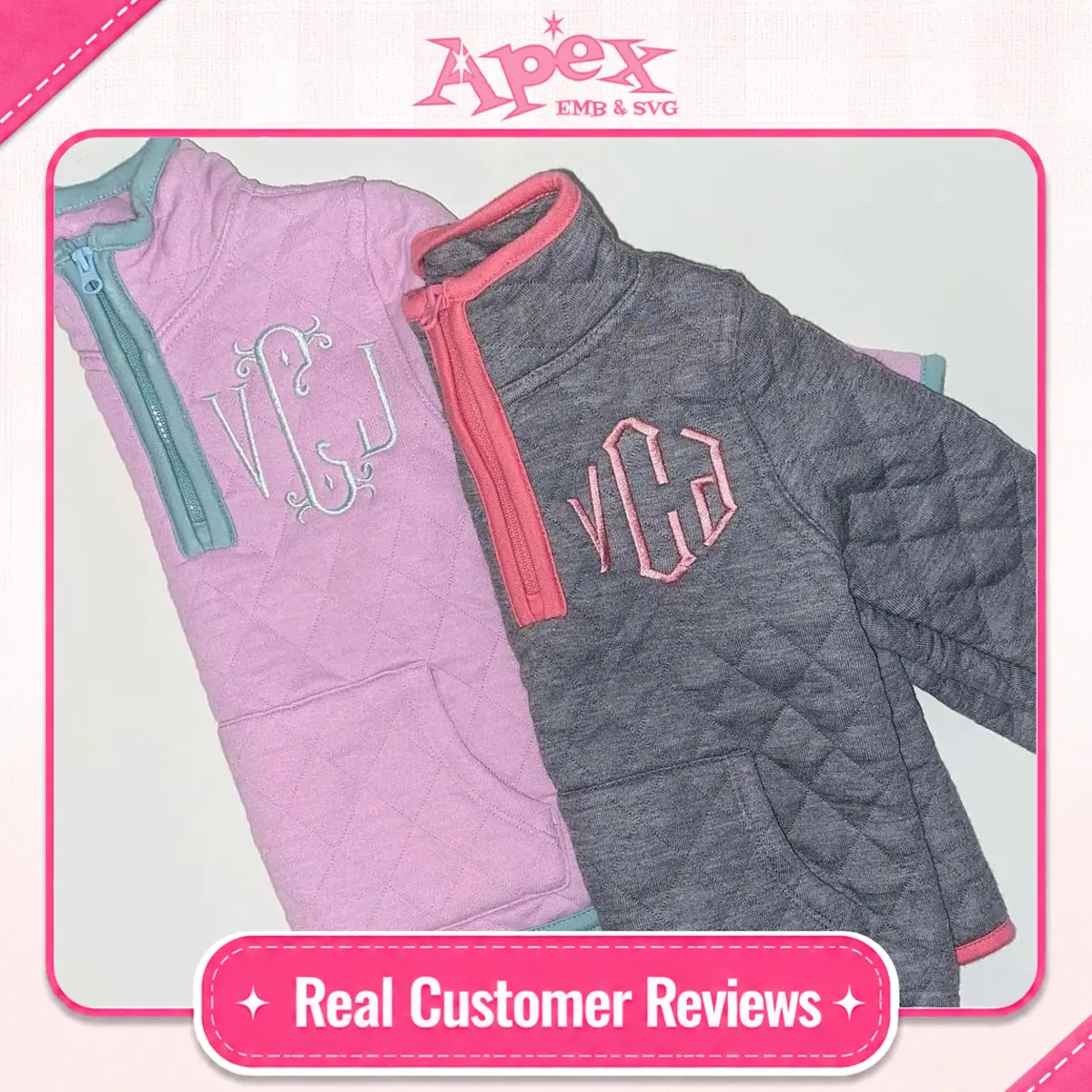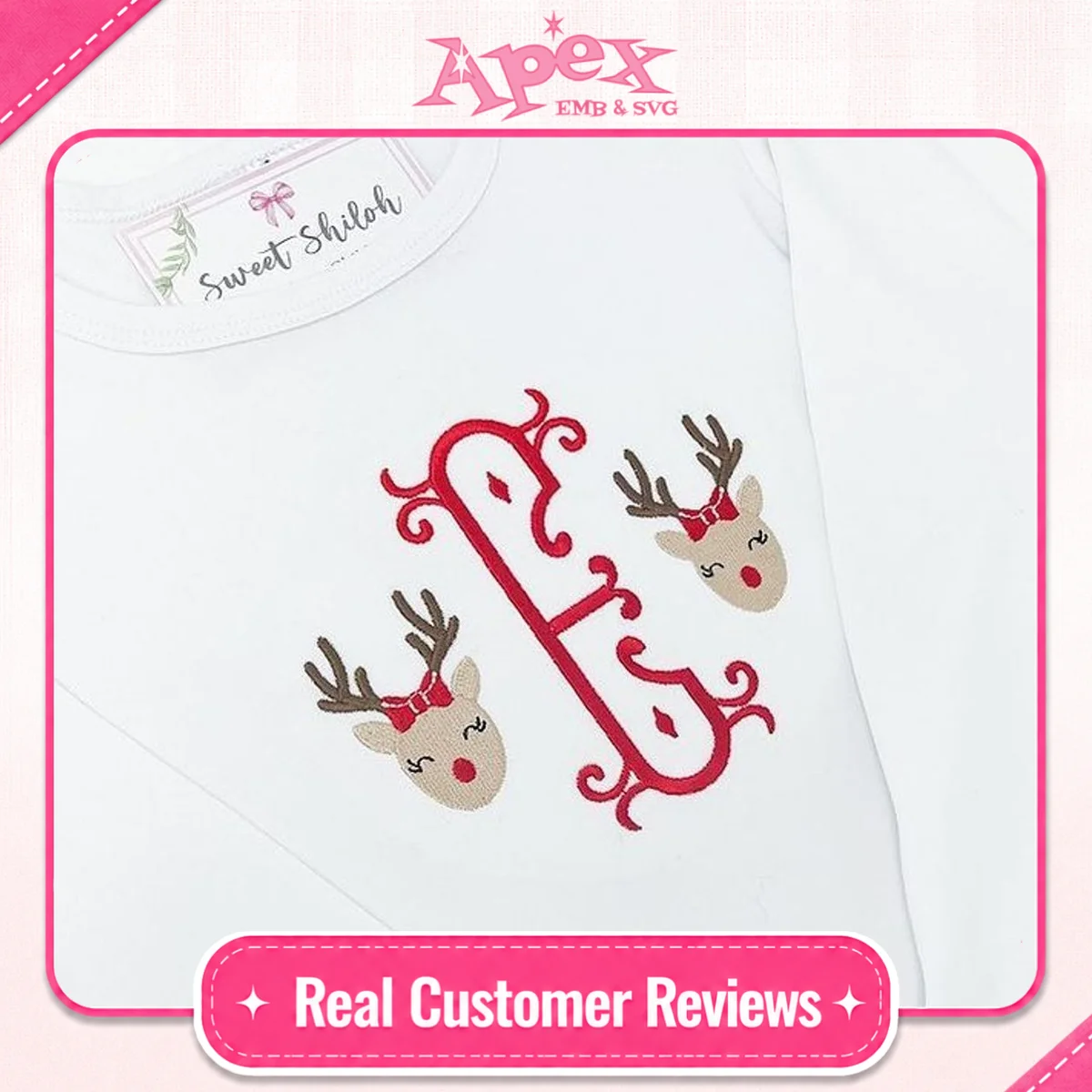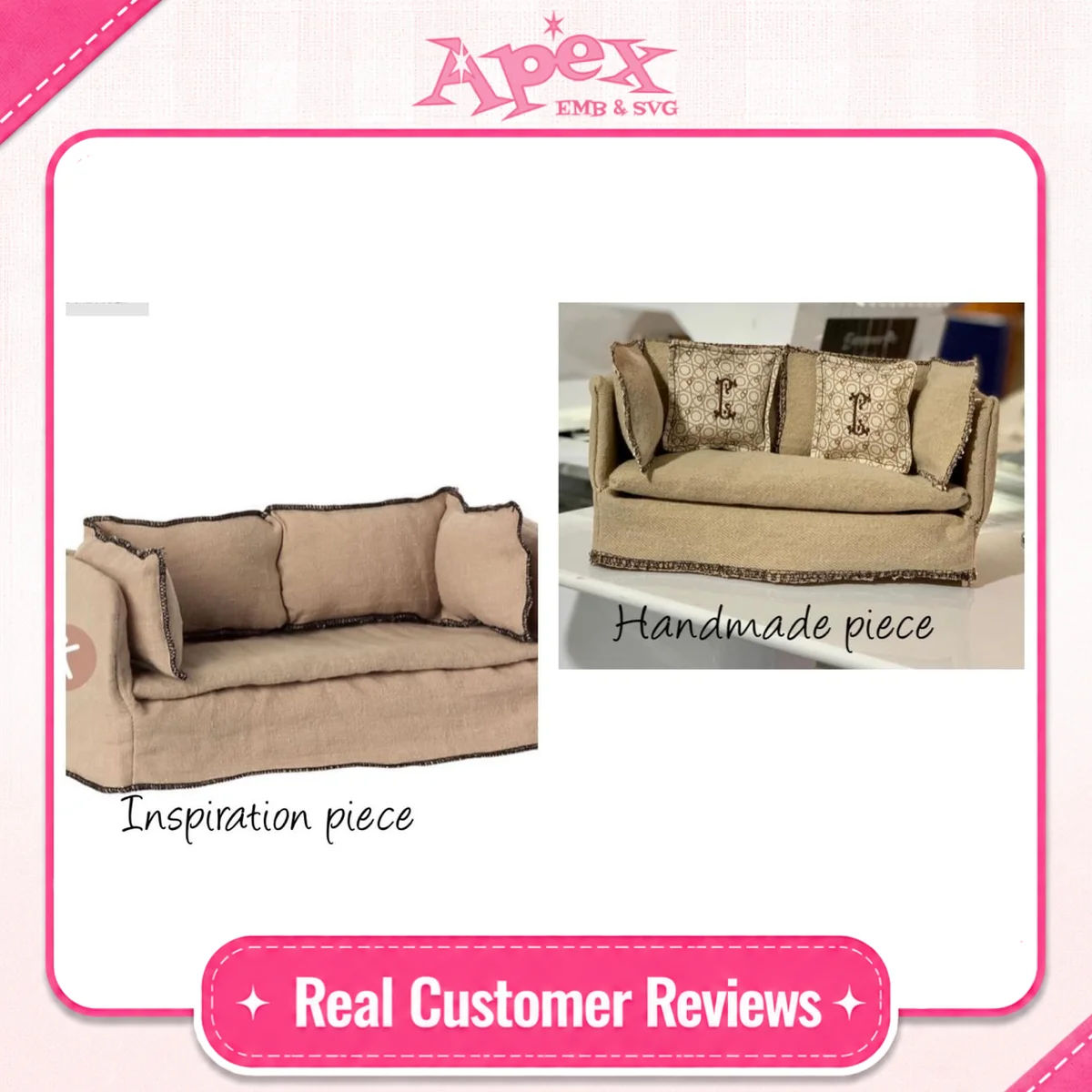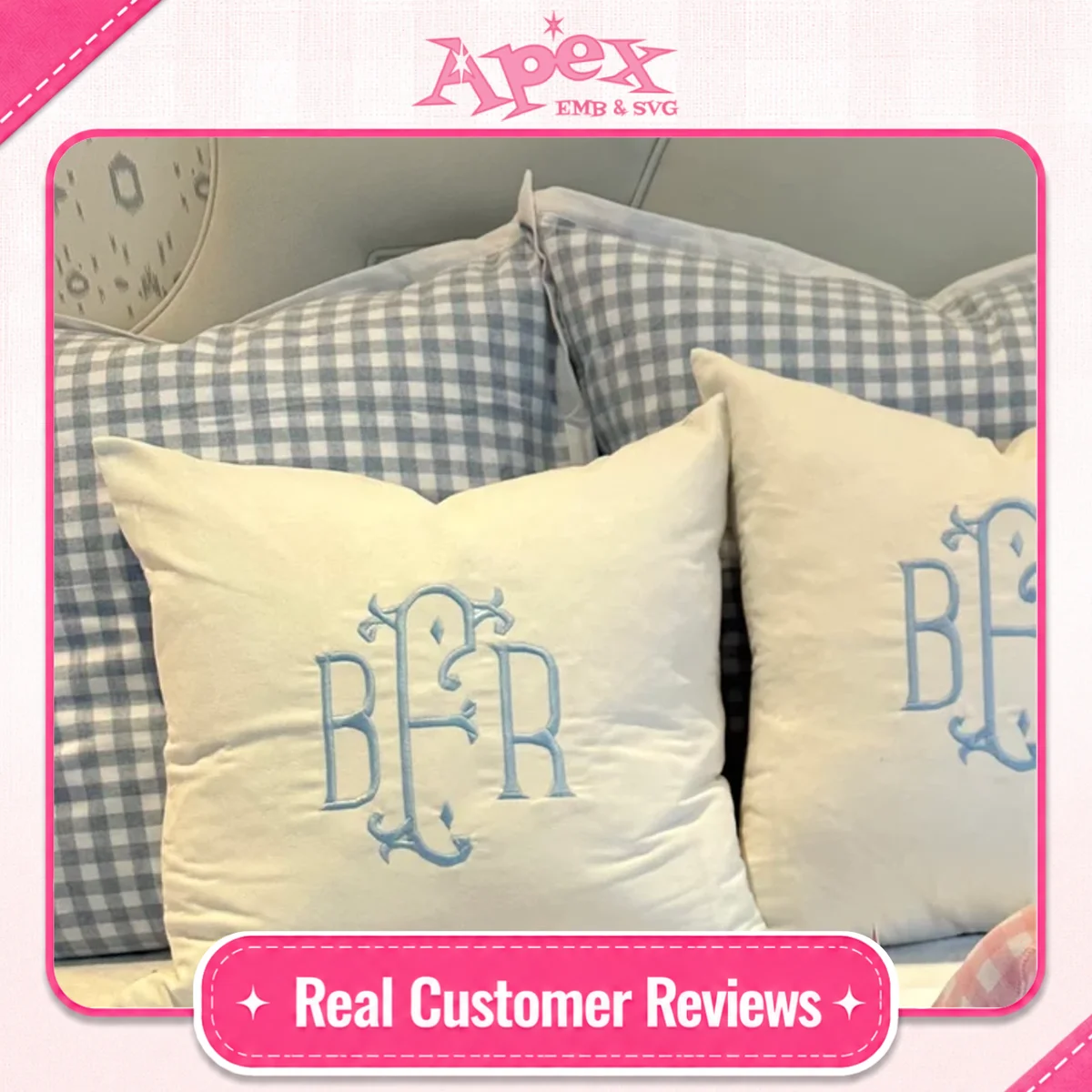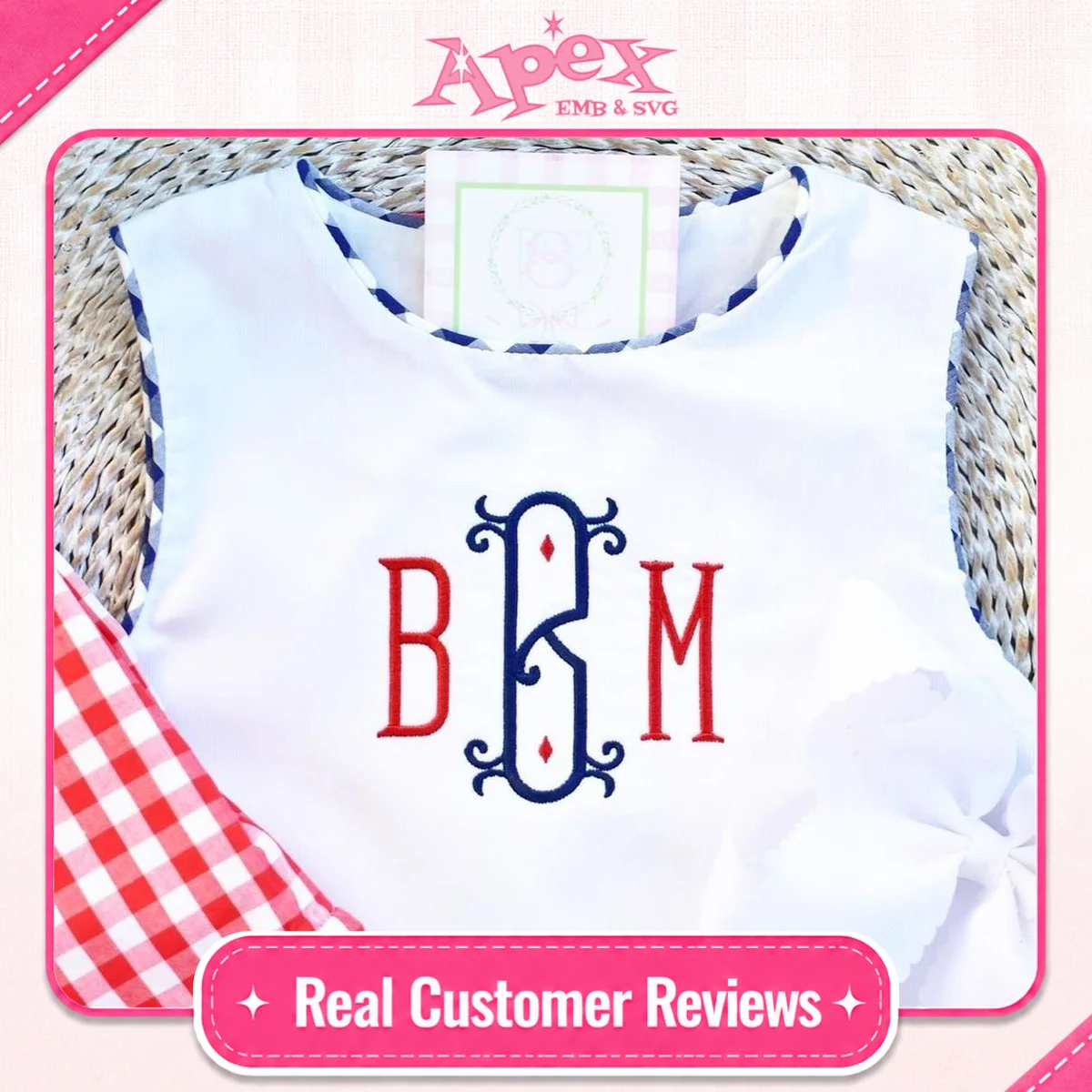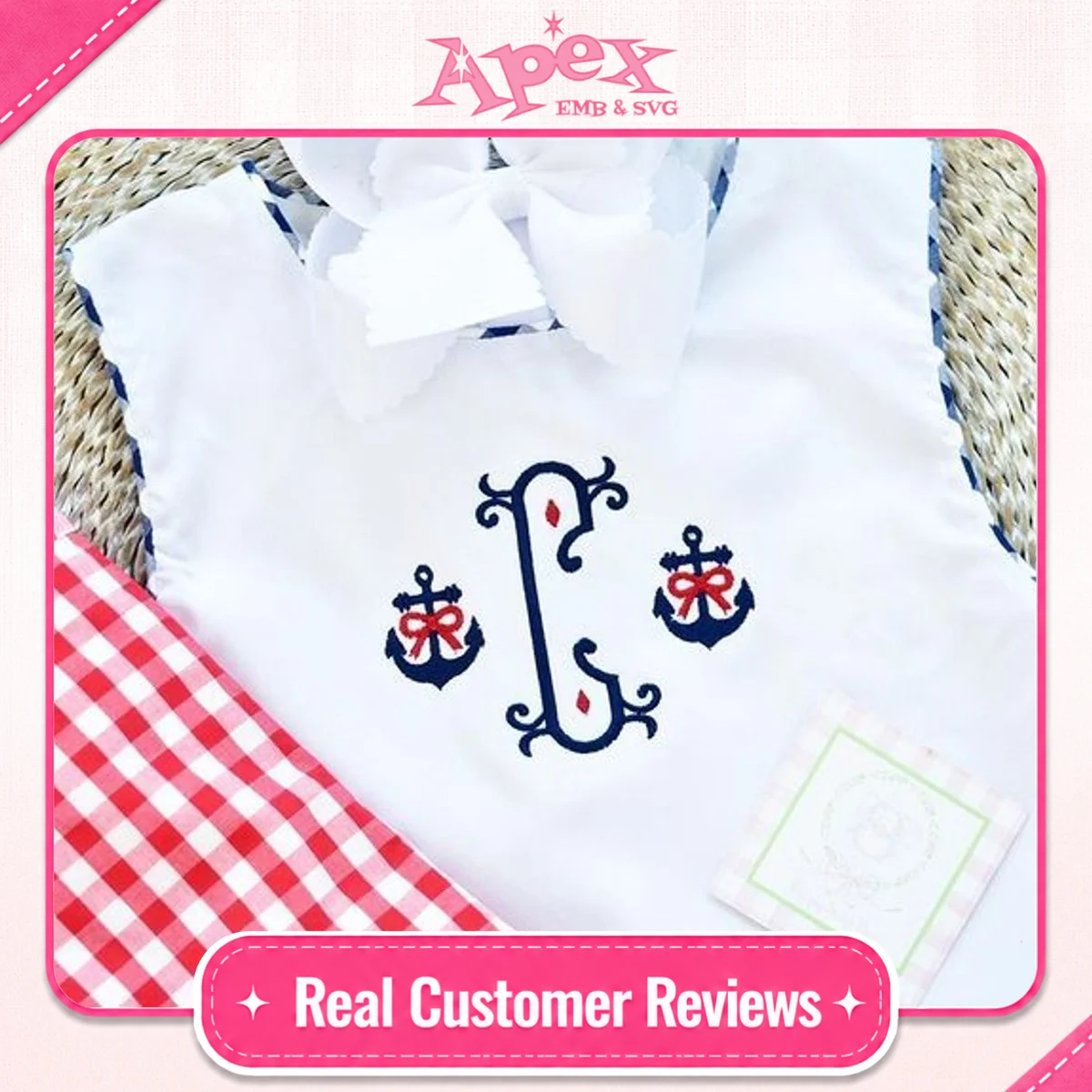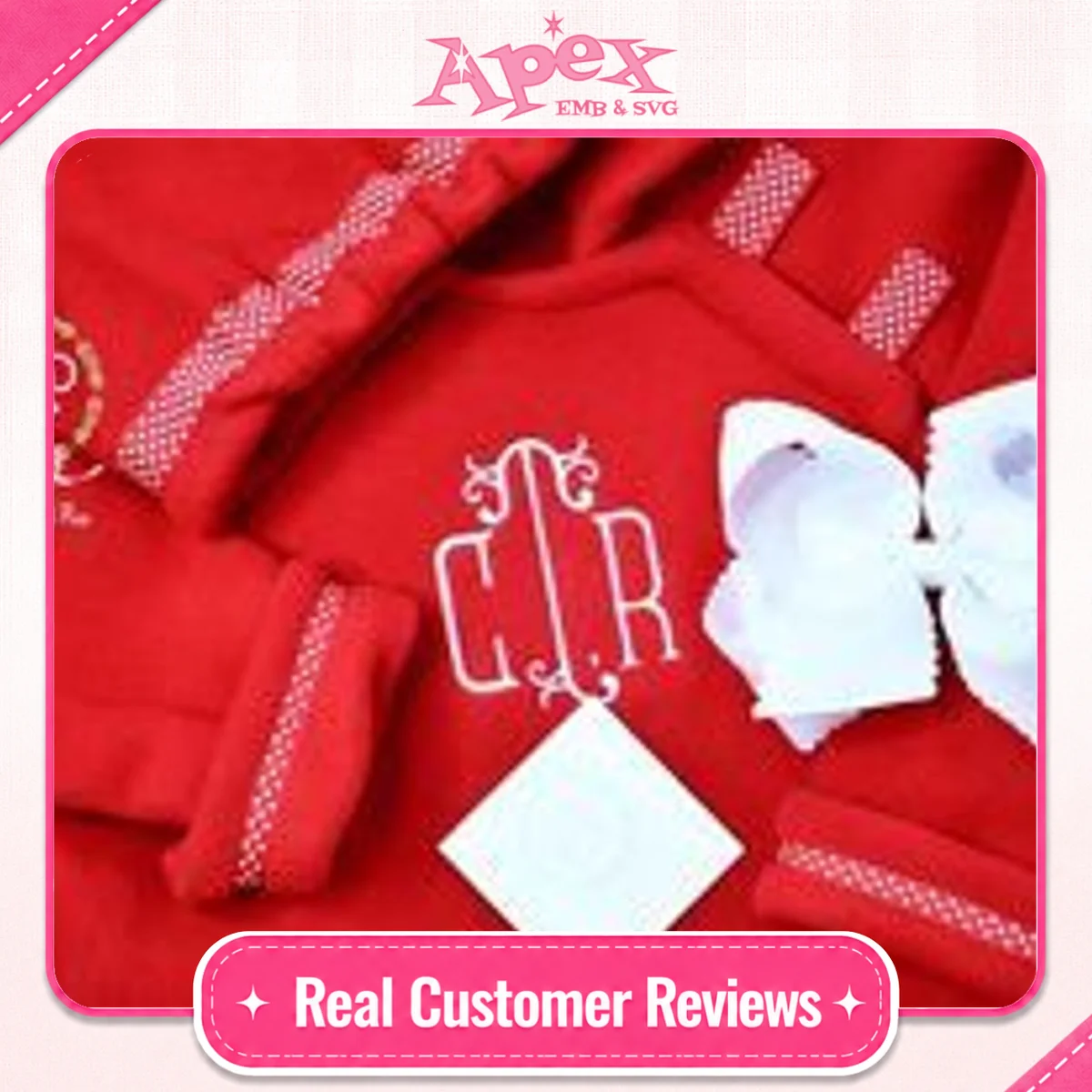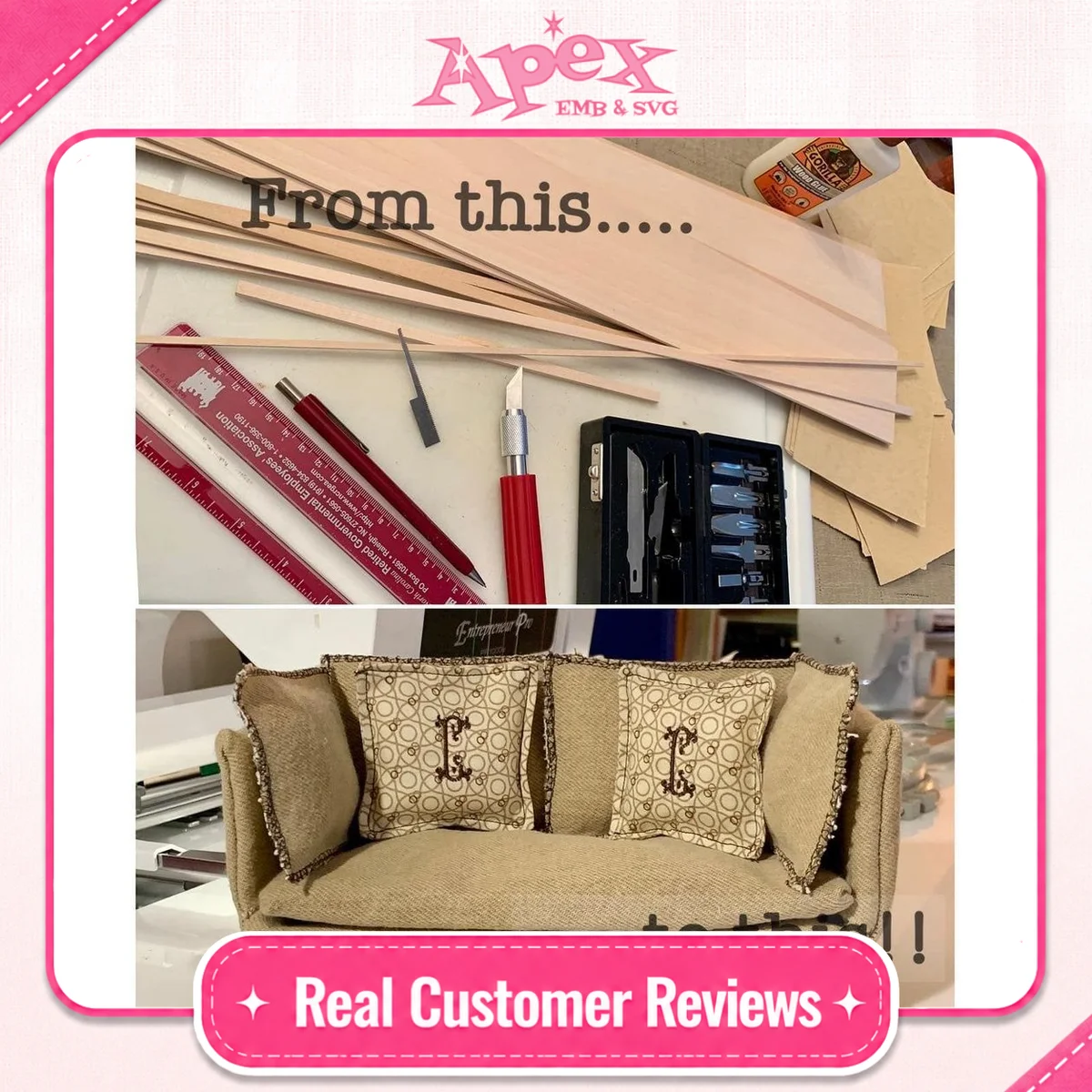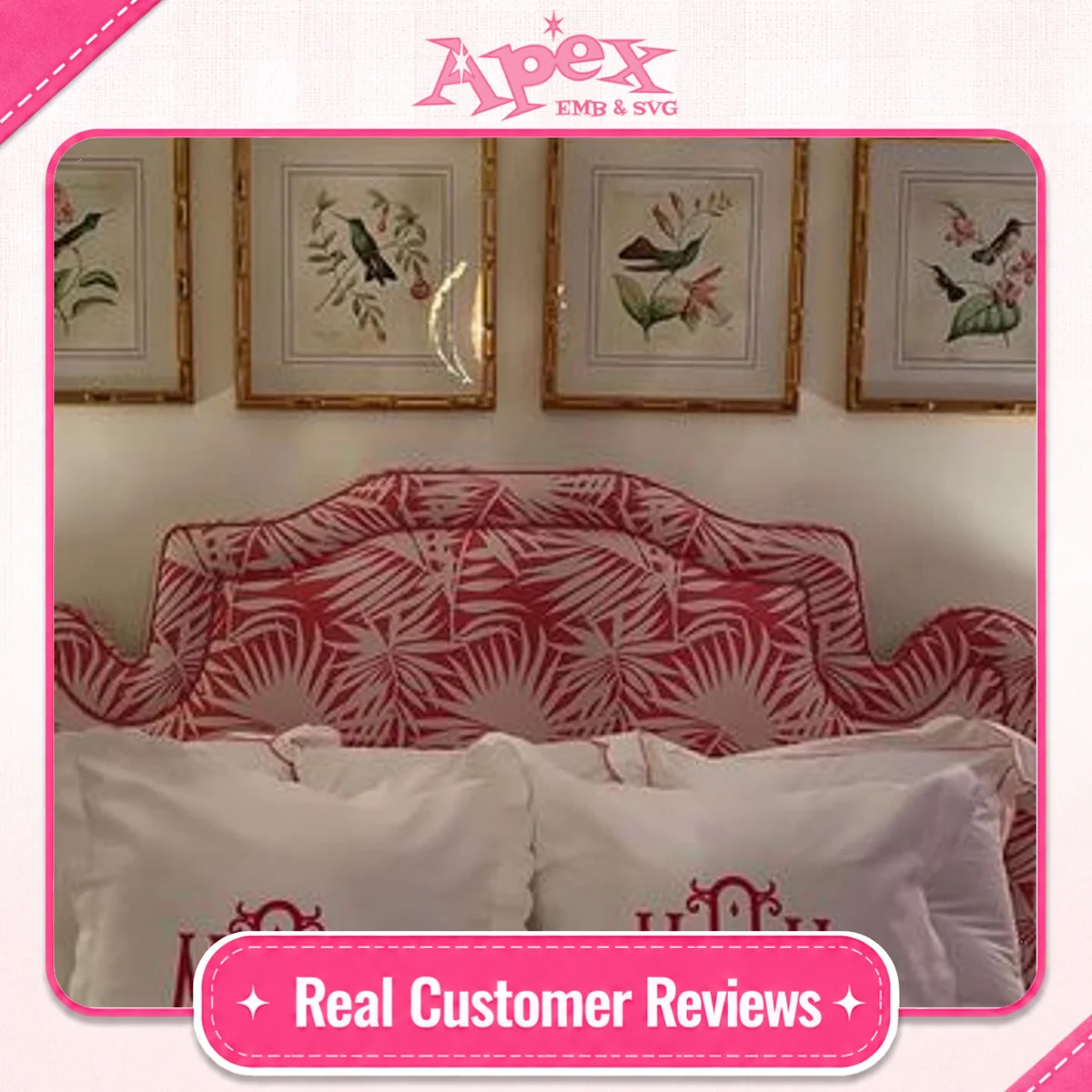
Vienna Monogram 3D Puff Embroidery Font
Create Italian style personalized gifts and home décor with Vienna 3D Puff. European old world Monogram Embroidery Font. Featuring a classic with Europe Regal stylish 2-color embroidery monogram set is perfect for customizing hats, linens, towels, baby gifts, tote bags, and more.
This Vienna 3D Puff embroidery font collection includes complete size sets of Letters A-Z . Each font comes professionally digitized for smooth stitching and excellent embroidery results. Apex has digitized machine embroidery fonts for over 25 years.
- Perfect for Single Letter Wedding Monograms
- Custom Home Décor Projects